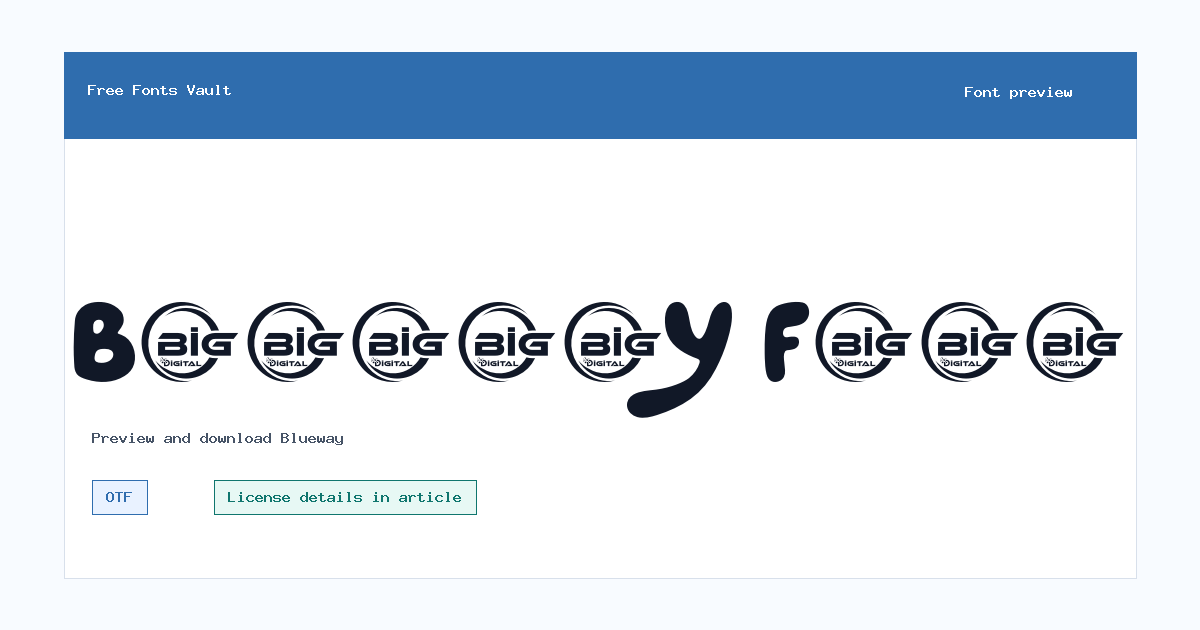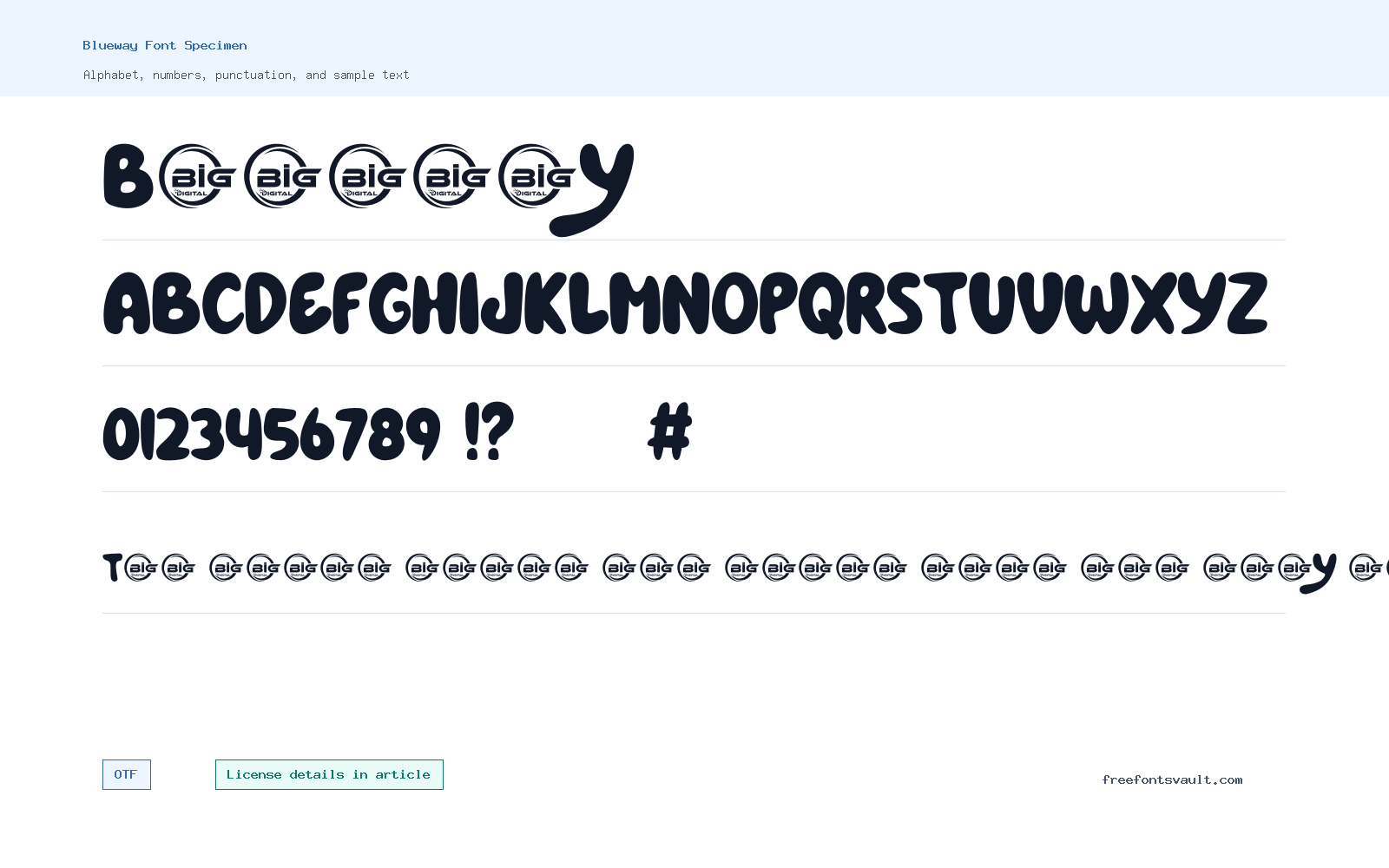
Blueway
- Designer Abu Hasnat
- Foundry Obig Digital
Blueway font.
Blueway is a single-style OTF font for quick previewing and simple display work. It is most useful when you want one clean regular style and do not need a large font family.
About Blueway Font
Use Blueway for short headlines, name treatments, posters, social graphics, labels, and early brand mockups where the text needs to stay simple. Since only one regular style is included, the font is easy to test but less flexible than a family with bold, italic, or multiple weights. Preview your exact wording first, especially if your design contains long words, prices, dates, usernames, or mixed punctuation.
Blueway can work well as the main display face when the supporting typography is kept quiet. Pair it with a readable body font for descriptions, captions, menus, or longer website copy. If a layout needs hierarchy, create it through size, spacing, color, and placement rather than expecting Blueway to supply several weights. That approach keeps the design cleaner and avoids forcing one file to do too many jobs.
The safest way to judge Blueway is to preview it with real words instead of a generic sample. Short brand names, two-word titles, and clean labels will show the spacing quickly. If a design needs long supporting copy, keep Blueway as the accent and move the reading work to a more complete text family.
- Useful for short display text and mockups
- Best paired with a separate body font for longer copy
- Short headings and title treatments
- Social graphics, posters, and simple layouts
- Labels, mockups, and personal design drafts
- Projects where one regular style is enough
Type your real project text into the preview and check spacing at both small and large sizes. If the words feel too flat, use a stronger companion font for contrast rather than trying to fake bold or italic styles from the same file. Check the design on both light and dark backgrounds, because a single regular style depends heavily on contrast and spacing for personality.
What is Blueway best for?
It is best for short headings, title text, labels, posters, social graphics, and personal mockups.